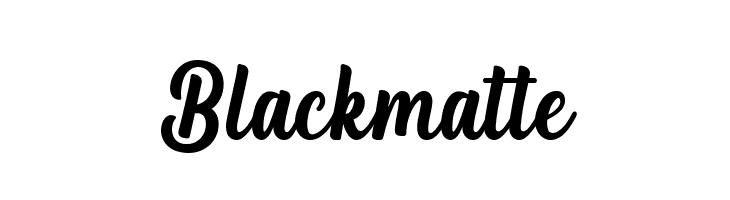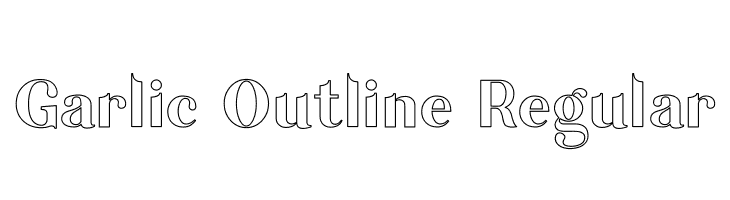
A modern outline font with clean, structured characters and consistent stroke width.
A bold, high-contrast serif font with a modern and dynamic style.
An elegant, italic outline font with a modern and sophisticated style.
A dynamic, italicized font with elegant, flowing characters and moderate contrast.
A sophisticated cursive font with elegant, flowing strokes.
A modern, elegant script font with flowing, cursive strokes and medium contrast.
A modern, rounded sans-serif font with a friendly and balanced appearance.
A clean, minimalist font with thin, uniform strokes and a modern aesthetic.
A bold, angular font with a futuristic and dynamic style.
A bold, flowing script font with elegant curves and smooth strokes.